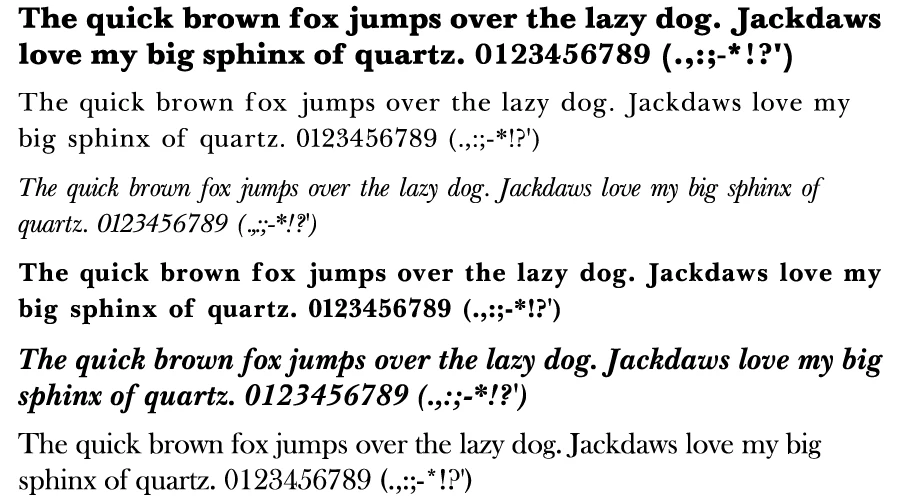
Baskerville is a transitional Serif typeface font. John Baskerville designed this font in 1750. John Baskerville (1707-1775) was a printer and type designer. We are providing 12 styles in our package. The styles of this font are much older, so its use at the present time is a little less noticeable. However, despite its old style, it has the potential to attract visitors. The following is a list of some of the fonts that have been created based on the design of the Baskerville font:
- Libre Baskerville Designed by Impallari Type and published through google.
- Baskerville PT Designed by Dmitry Kirsanov From Paratype.
Baskerville was used to create books in the seventies. This font has been used in some popular books by many famous authors such as:
- Paradise Lost(1758) By John Milton.
- Volume One of The works of Joseph Addison (1761).
What type of font is Baskerville?
Ans: Baskerville is a serif typeface font designed by John Baskerville.
Is there any font similar to Baskerville in Google Fonts?
Ans: Libre Baskerville is mostly similar to Baskerville in Google fonts.